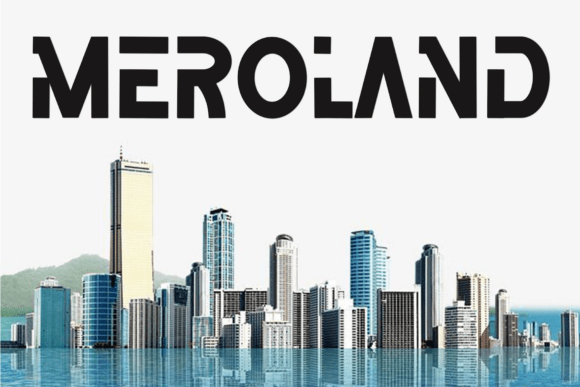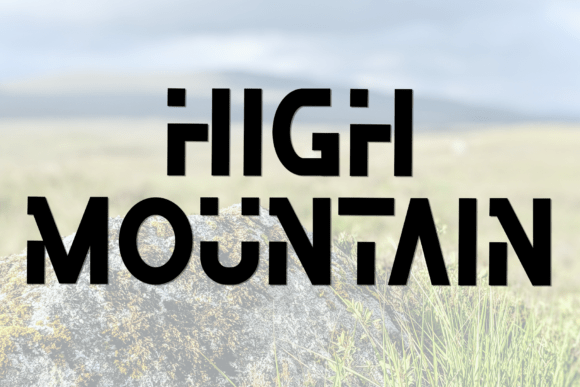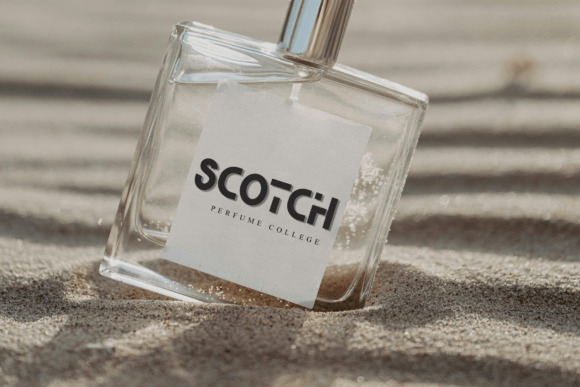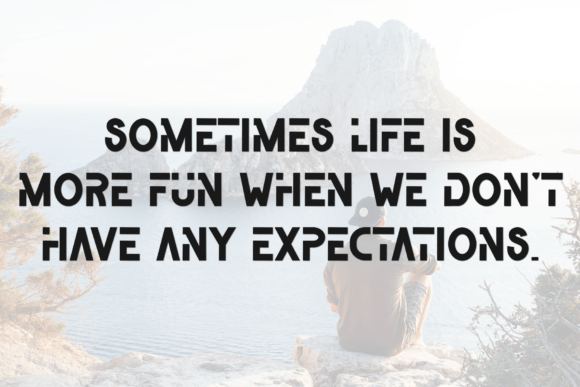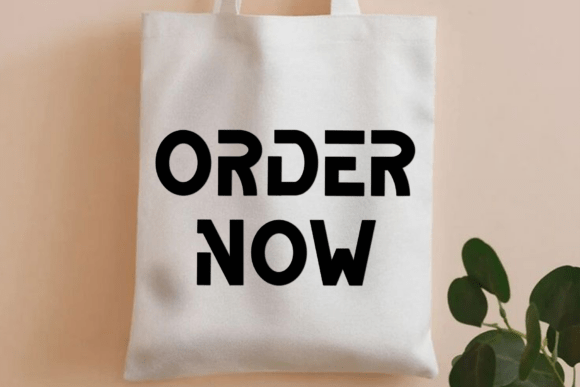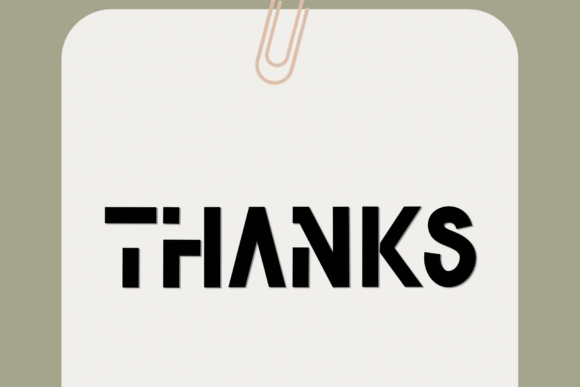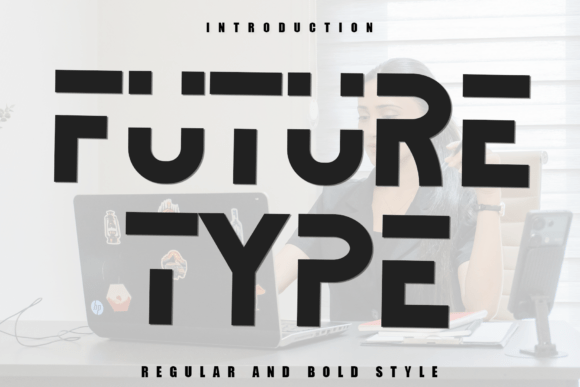
Introducing Future Type Font: The Ultimate Choice for Modern Aesthetics
In the realm of typography, fonts play a pivotal role in defining the visual identity of a brand, product, or service. With the ever-evolving landscape of design, it’s essential to stay ahead of the curve with a typeface that embodies innovation and forward-thinking. This is where Future Type font comes into play – a high-impact, geometric display typeface that redefines modern aesthetics.
Design Characteristics of Future Type Font
Future Type font boasts bold, blocky strokes and a distinct tech-inspired structure, making it an ideal choice for sci-fi branding, gaming interfaces, and architectural layouts. Its heavy weight and sharp, industrial corners provide a sense of stability and innovation, perfect for logos that need to exude a cutting-edge feel. The font’s geometric design ensures clarity and legibility, even at larger sizes, making it versatile for various applications.
One of the standout features of Future Type font is its versatility. It seamlessly transitions from digital app designs to physical streetwear apparel, making it a valuable asset for designers working across multiple platforms. Whether you’re creating a logo, heading, or title, Future Type font adapts effortlessly, ensuring your message is conveyed with impact and style.
Pairing Options for Enhanced Visual Impact
When using Future Type font, consider pairing it with thin, monospaced fonts to enhance the “high-tech” look. This combination creates a visually appealing contrast that can elevate your design to new heights. Alternatively, using Future Type font alone can make a massive statement, ideal for cinematic titles or headings that demand attention.
Why Choose Future Type Font?
If your project requires a voice that is loud, forward-thinking, and uncompromisingly modern, Future Type font is the ultimate tool to build your visual identity. Here are a few reasons why designers and crafters are gravitating towards this typeface:
- Innovative Aesthetics: Future Type font’s geometric design and tech-inspired structure make it perfect for projects that require a modern and innovative look.
- High Versatility: Suitable for a wide range of applications, from digital interfaces to print materials and apparel.
- Impactful Legibility: Its bold and blocky strokes ensure that your message is conveyed clearly and effectively, even at larger sizes.
- Easy Pairing: Combines well with other fonts, especially thin, monospaced fonts, for a “high-tech” aesthetic.
Tips for Using Future Type Font
To maximize the potential of Future Type font, consider the following tips:
- Experiment with Sizes: Future Type font’s bold design makes it effective at both large and small sizes, so don’t be afraid to experiment.
- Play with Colors: The font’s industrial look can be complemented by a variety of colors, from metallic tones to vibrant hues.
- Mix and Match: Try pairing Future Type font with other typefaces to create a unique visual hierarchy.
Future Type font is more than just a typeface – it’s a statement. It’s for those who dare to be different, who refuse to blend into the background, and who demand to be noticed. With its bold, geometric design and tech-inspired aesthetic, Future Type font is poised to revolutionize the way we think about modern typography. Whether you’re a designer looking to elevate your brand or a crafter seeking to add a touch of innovation to your project, Future Type font is the ultimate choice for those ready to step into the next dimension.